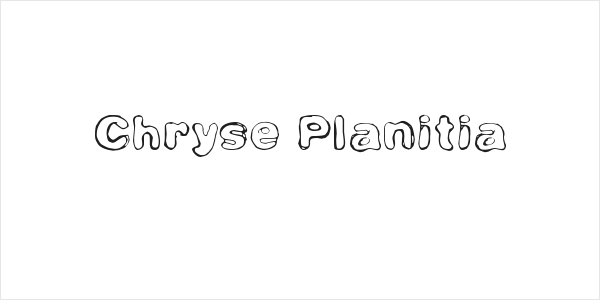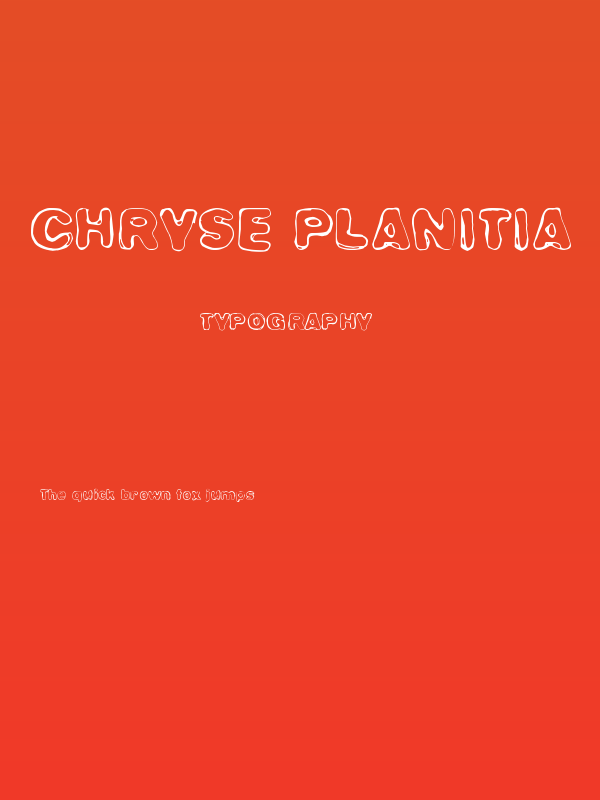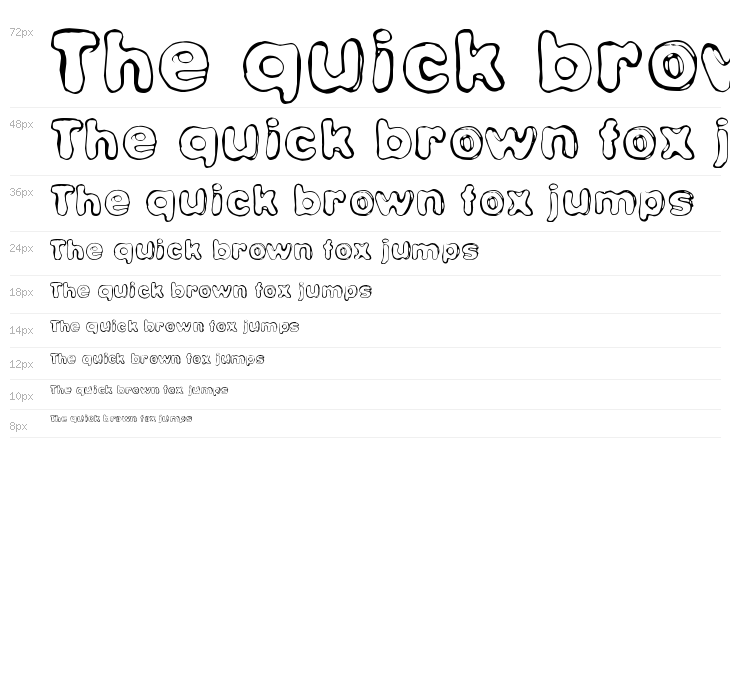
Chryse Planitia Font
Chryse Planitia Description
This playful and whimsical font features a bold, bubble-like design with a hand-drawn appearance. Each character is outlined with a thick, uneven stroke, giving it a casual and informal feel. The letters are rounded and slightly irregular, adding to the font's charm and uniqueness. The numbers and special characters maintain the same bubbly style, ensuring consistency across all glyphs. This font is perfect for projects that require a fun and lighthearted touch, such as children's books, party invitations, or playful branding.
| Overall Style | Playful, Whimsical, Casual |
| Proposed Projects | Ideal for children's books, party invitations, playful branding, and casual designs. |